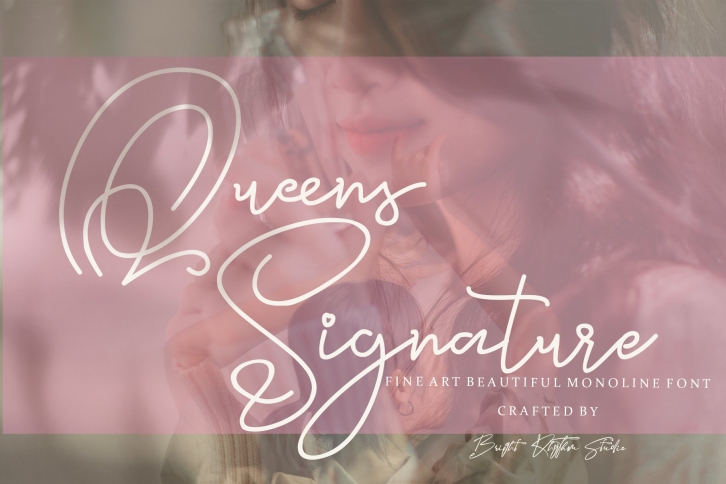
Queens Signature is a beautiful font that was designed by Bright Rhythm Studio. It's a great choice for designers and creatives who need such a font. It was released on January 5, 2021 and the file size is 19.64 MB. Queens Signature may give a more youthful, expressive and casual look to your project. It is a very beautiful, refined, elegant, and high-quality font.